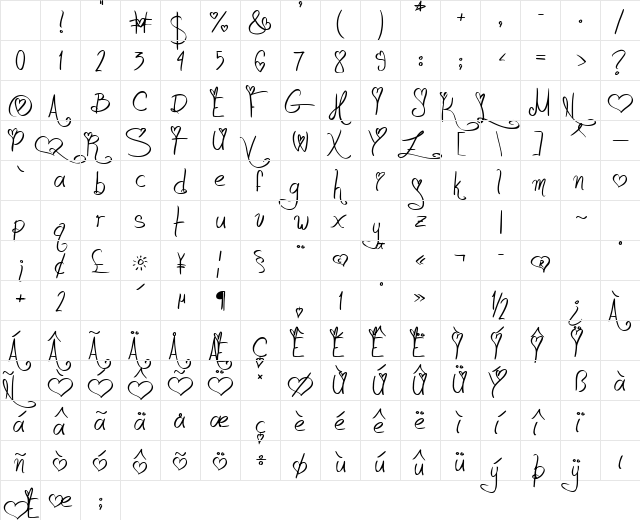
Jellyka - Love and Passion Regular Free Font
Jellyka - Love and Passion Regular
Designer: Jellyka Nerevan
Design Context for Jellyka - Love and Passion
Jellyka - Love and Passion is a composed and adaptable typeface that performs quietly and consistently across a wide range of design contexts.